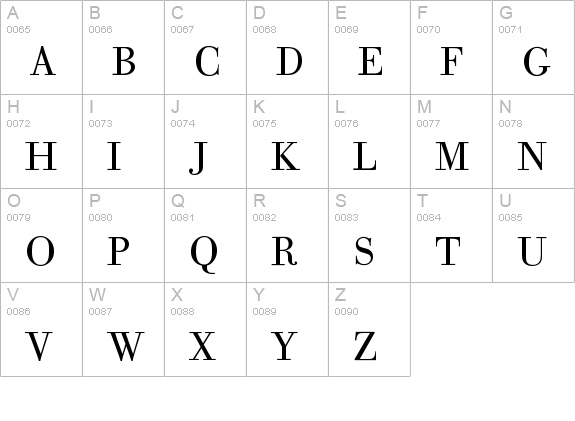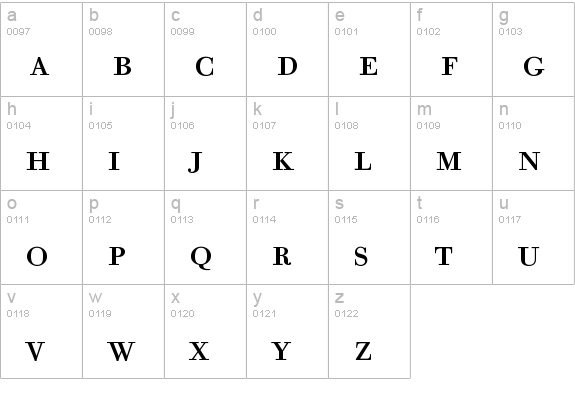
Bodoni Old Face Expert Regular is the standard, neutral variant in the Bodoni typeface family \xE2\x80\x94 well suited to general body text, paragraphs, and standard typographic work.
Bodoni Old Face Expert Regular font is a timeless and elegant typeface that exudes sophistication and refinement. With its classic design and clean lines, this font is perfect for projects that require a touch of old-world charm and elegance. The well-balanced letterforms and graceful curves make Bodoni Old Face Expert Regular font a versatile choice for a wide range of design applications, from invitations to branding to editorial design. The best part? This stunning font is available for free download at FontsMarket.com, making it accessible to designers and creatives looking to elevate their projects with a touch of timeless sophistication. Don't miss out on the opportunity to add Bodoni Old Face Expert Regular font to your font library and bring a touch of classic elegance to your next design project.